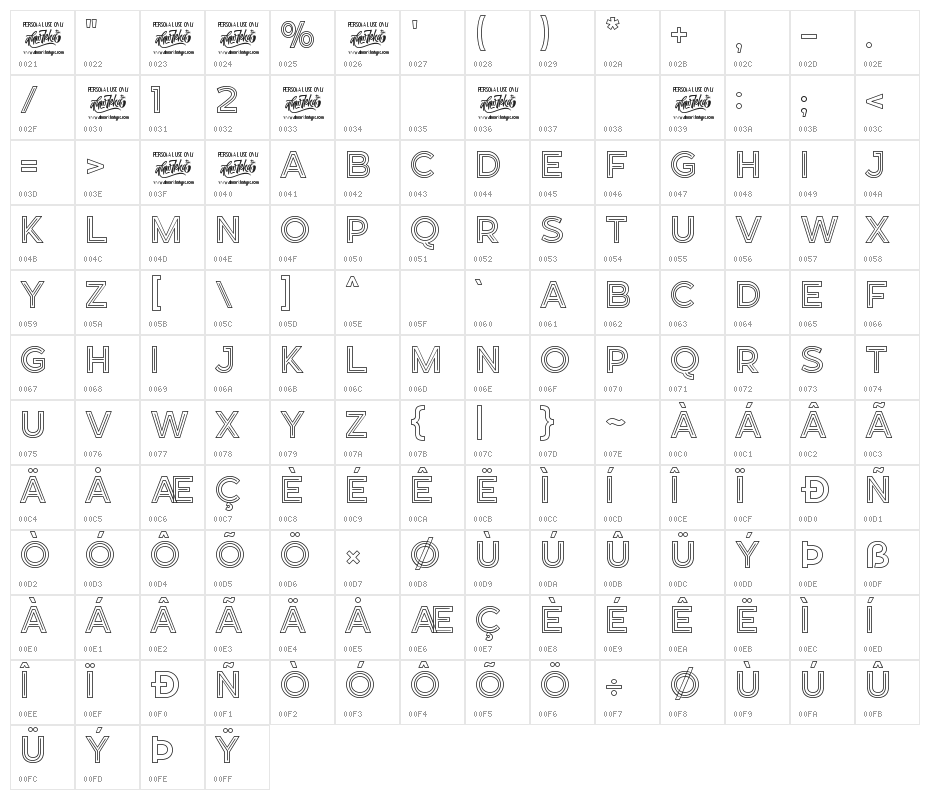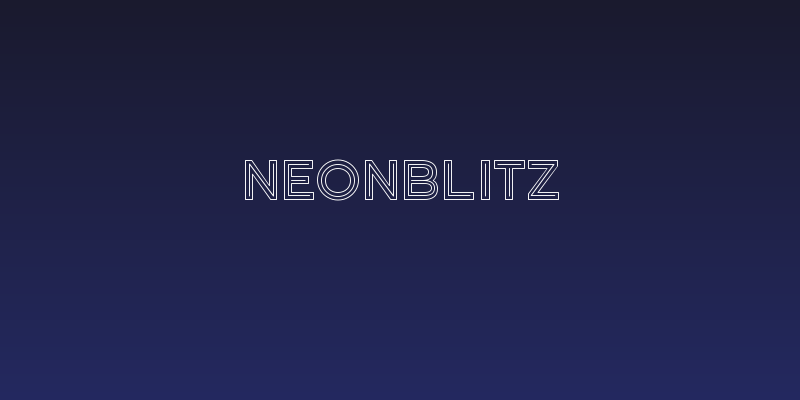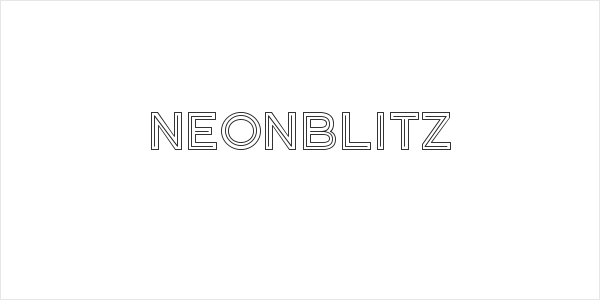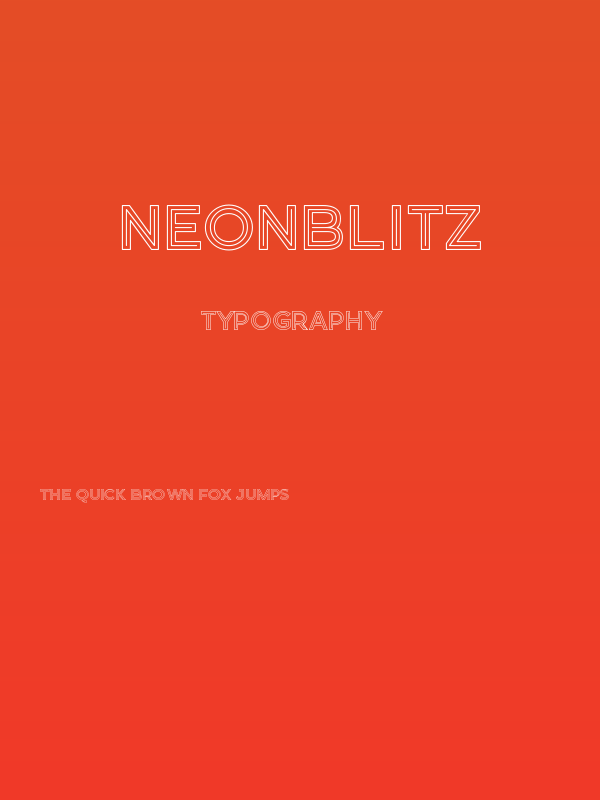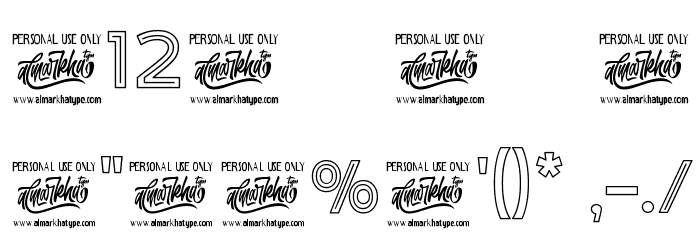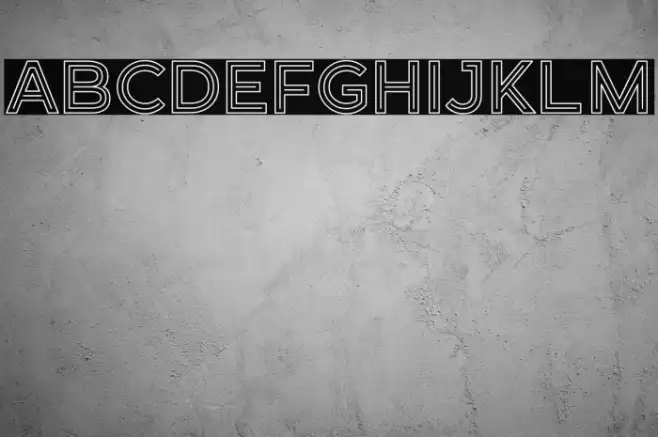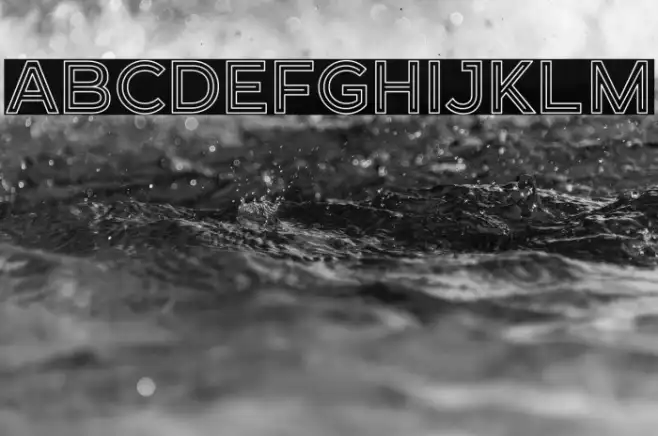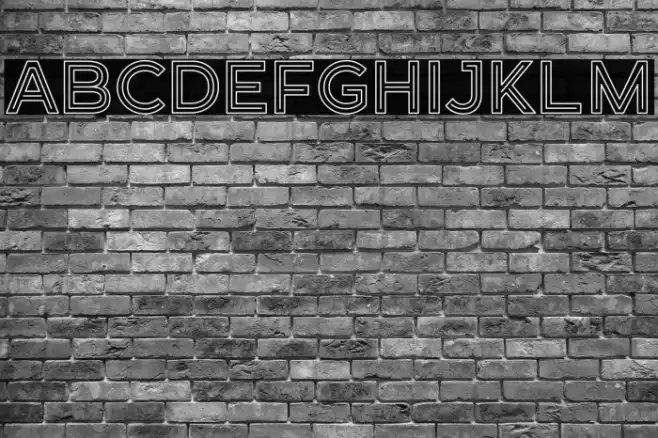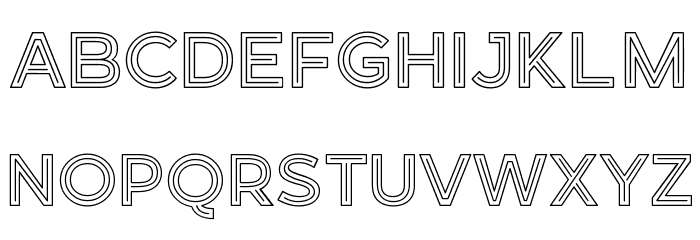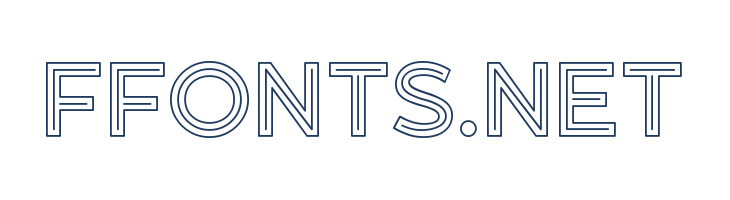
Neonblitz Font
Neonblitz Description
This font features a modern, geometric design with clean lines and a double-outline style that gives it a neon-like appearance. The uppercase and lowercase letters maintain a consistent structure, emphasizing symmetry and balance. The numerals and special characters follow the same design principles, ensuring uniformity across all glyphs. The font's open and airy design makes it suitable for creating eye-catching displays and headlines. Its unique style is reminiscent of neon signs, making it ideal for projects that require a bold and contemporary look.
| Use Case | Headlines, Logos, Signage |
| Proposed Projects | Ideal for branding, signage, posters, and any project requiring a striking, modern aesthetic. |